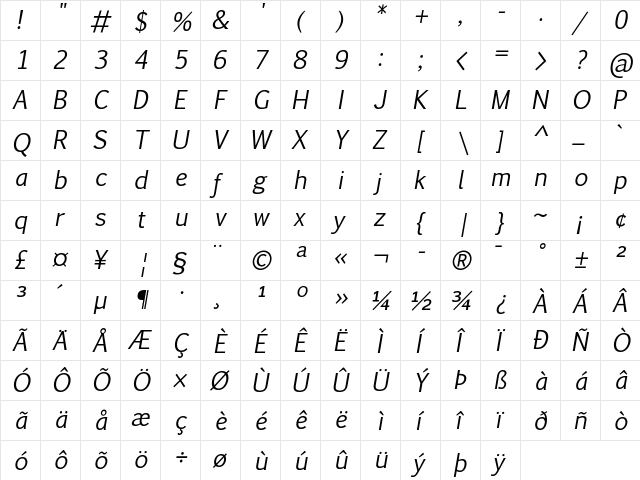
Pigiarniq Italic
| Designer | Wm. Ross Mills |
Design Context for Pigiarniq Typeface
Pigiarniq takes a measured approach to typography — its balanced proportions and neutral character make it a reliable workhorse for both digital and print work. The slanted form adds forward momentum and visual energy.